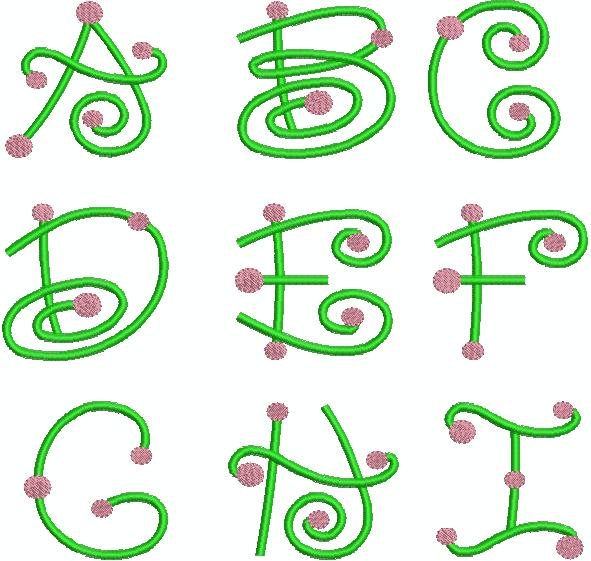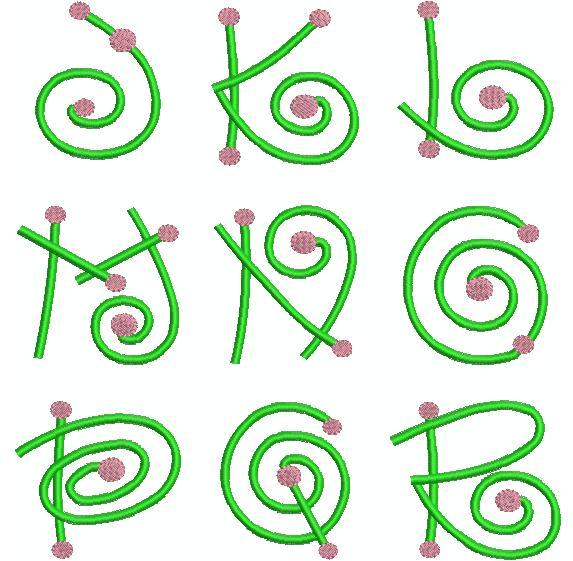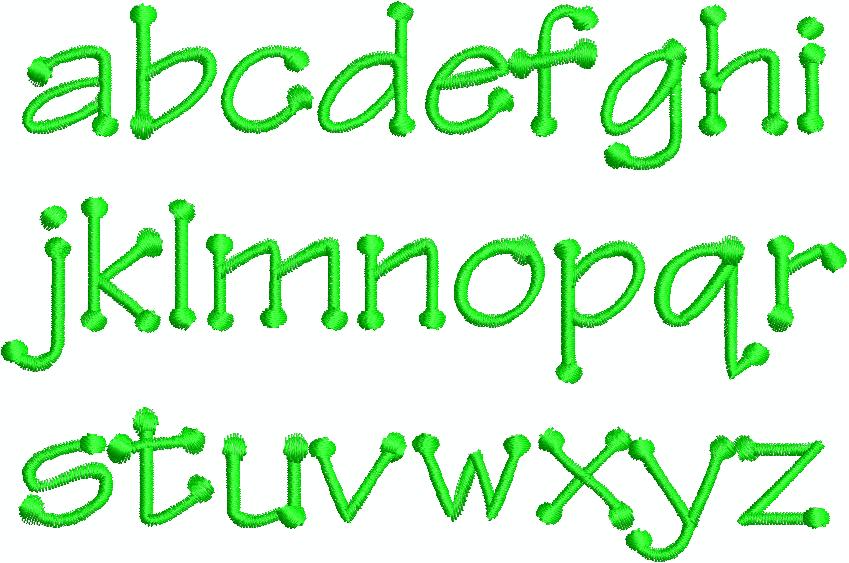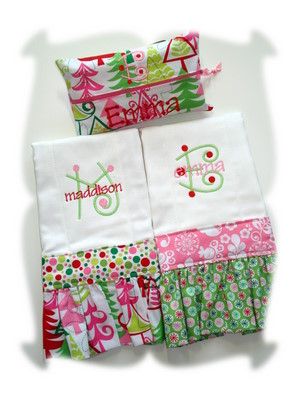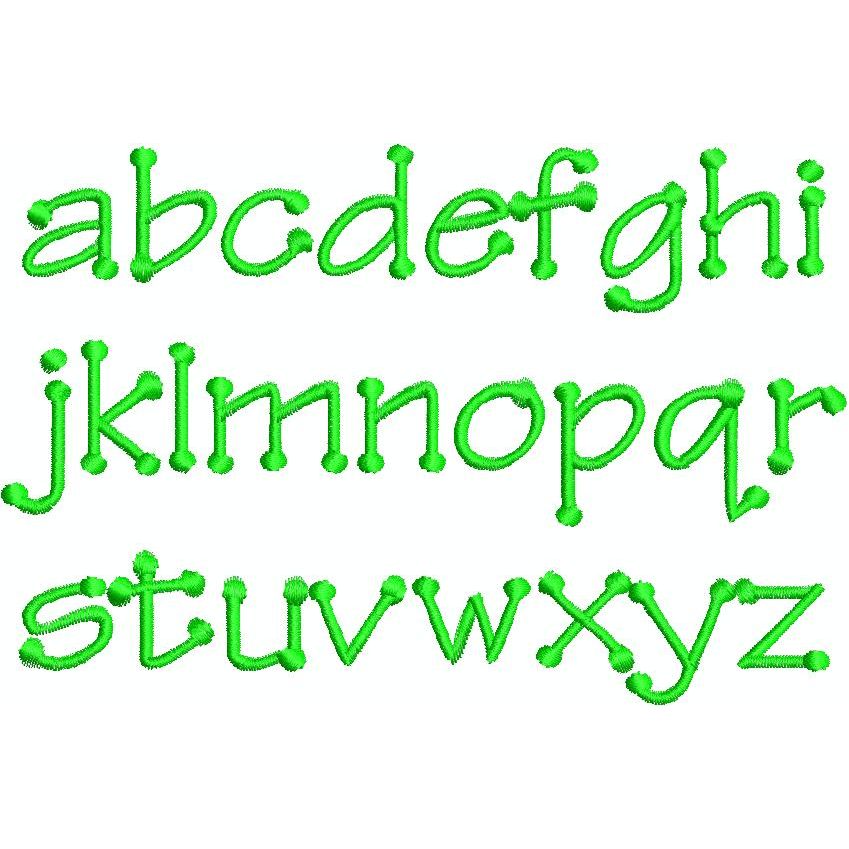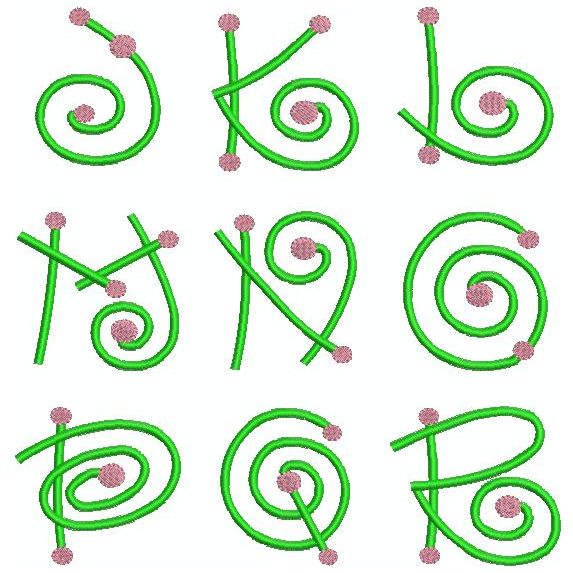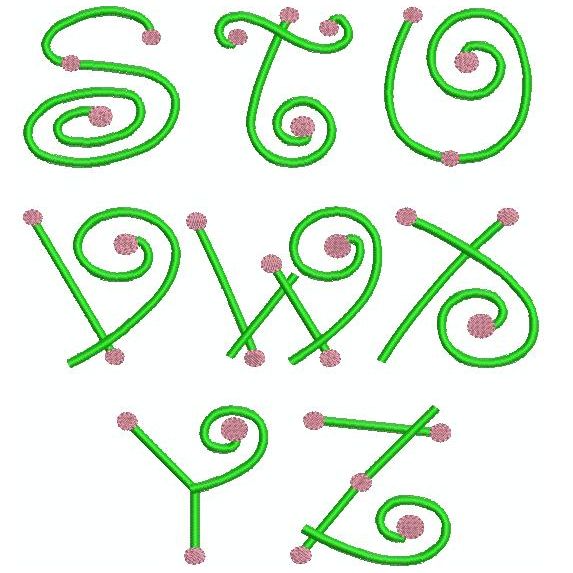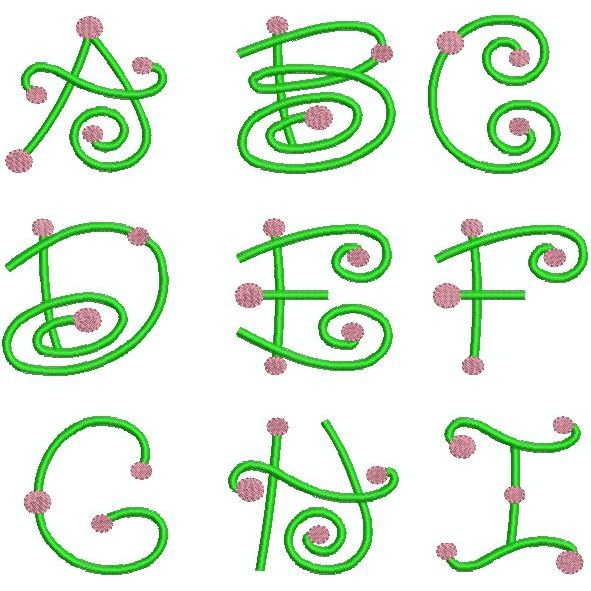
Dotty Girl Stacked Satin Stitch Embroidery Font
Dotty Girl Monogram comes in 3 sizes: 2-inch, 3.5-inch and 5-inch
Dotty Girl Lowercase Font comes in 2 sizes: 1-inch and 1.5-inch
Create a stacked monogram as shown by first embroidering a large two-color monogram and then stitch a name in the lower case font across the monogram.
Maddison sample shown with 3.5" monogram and 1" lowercase font
Emma sample shown with 3.5" monogram and 1.5" lowercase font